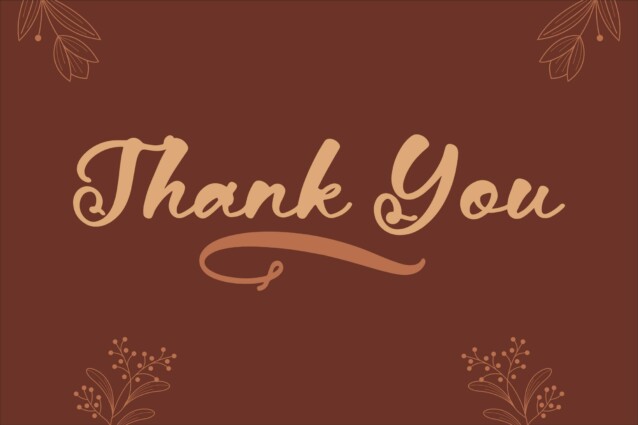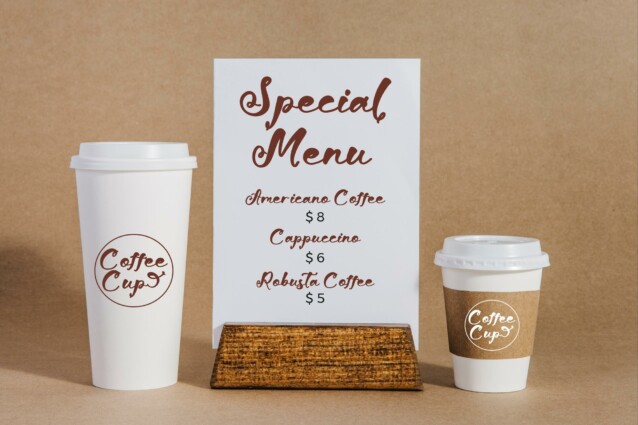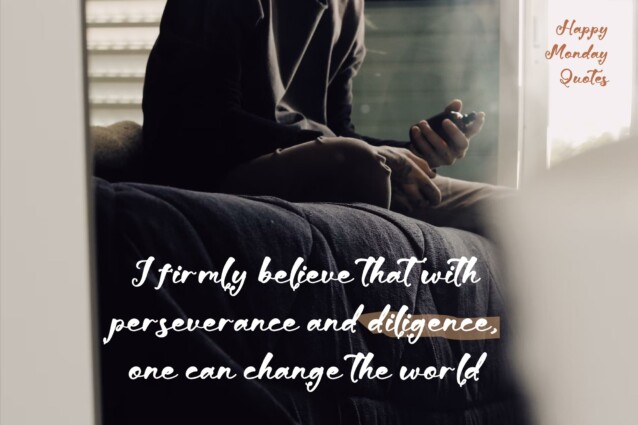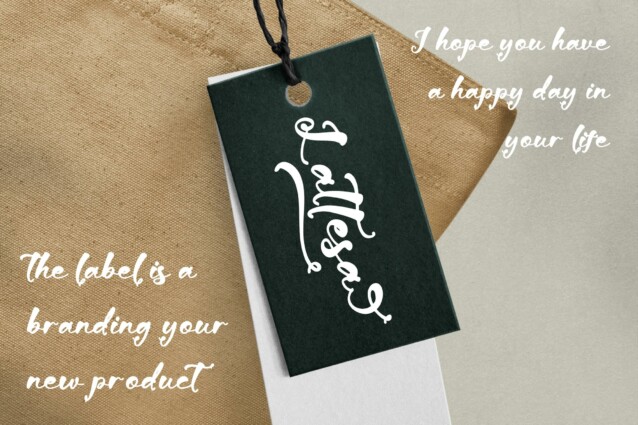
Alvafficent Fosimher Font
Alvafficent Fosimher Font is a Beauty Calligraphy Script Font, suitable for any projects such as: logos, branding projects, homeware designs, product packaging, mugs, quotes, posters, shopping bags, t-shirts, book covers, name card, invitation cards, greeting cards, label, photography, watermark, special events, and all your other lovely projects that need a beautiful script taste.